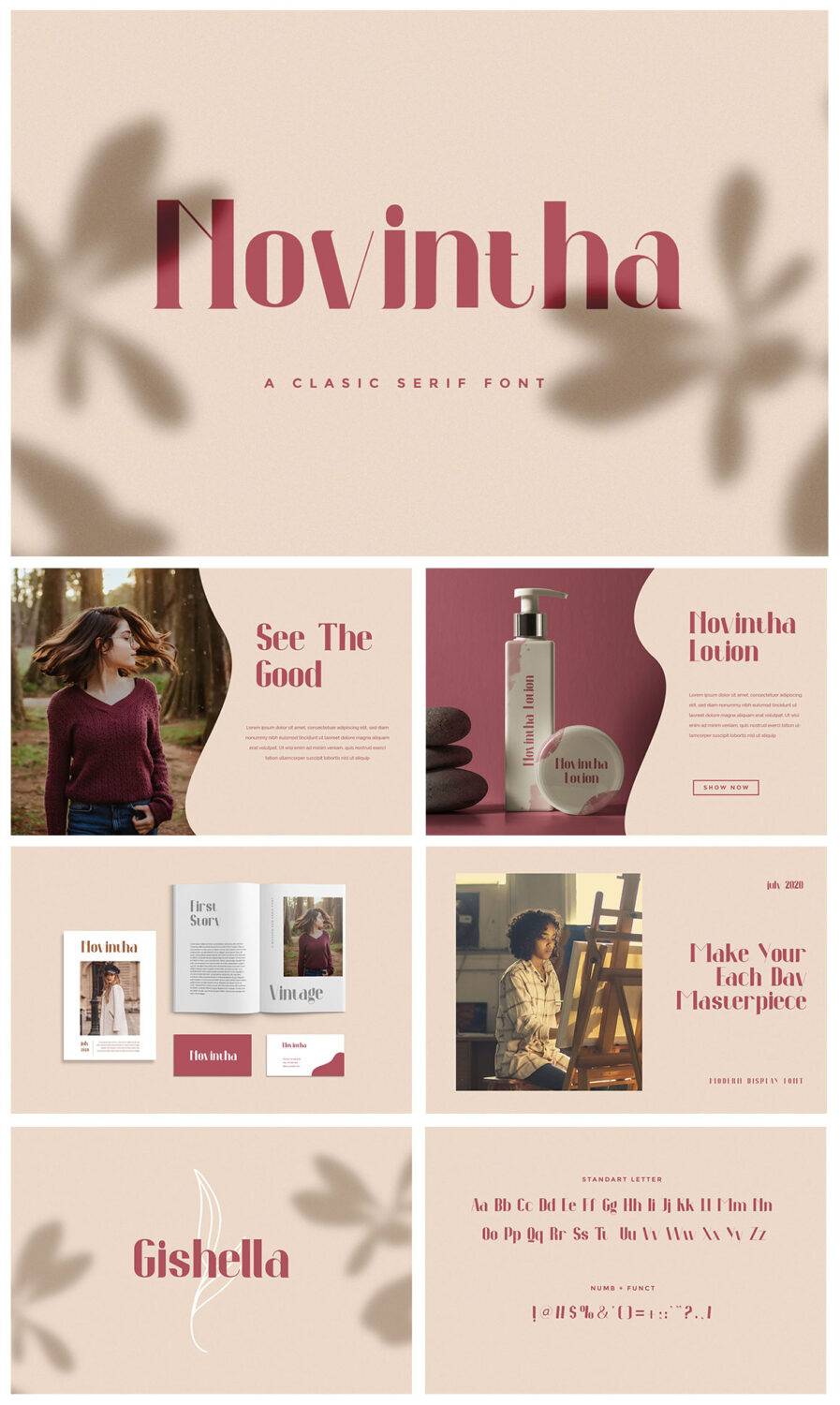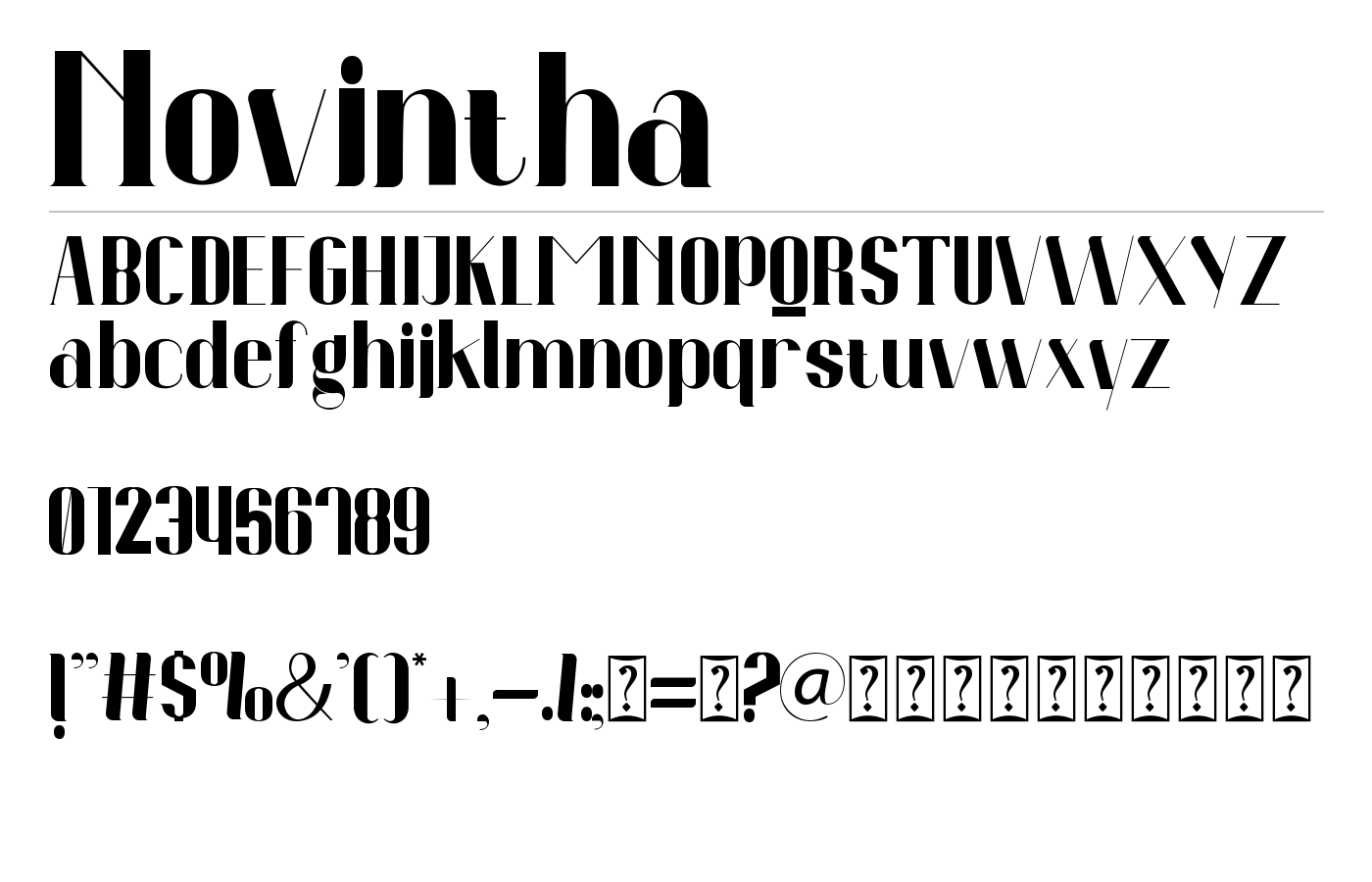
Novintha is a bold, modern serif font with strong vertical contrasts and sharp, elegant strokes that create a striking visual impact. Its tall, condensed letterforms and unique stylized details bring a sophisticated, contemporary feel, making it an excellent choice for fashion branding, editorial headlines, and stylish logos where a dramatic, upscale look is desired. This font stands out in large sizes, lending a chic and confident personality to any design.
Novintha Font
About Novintha Font